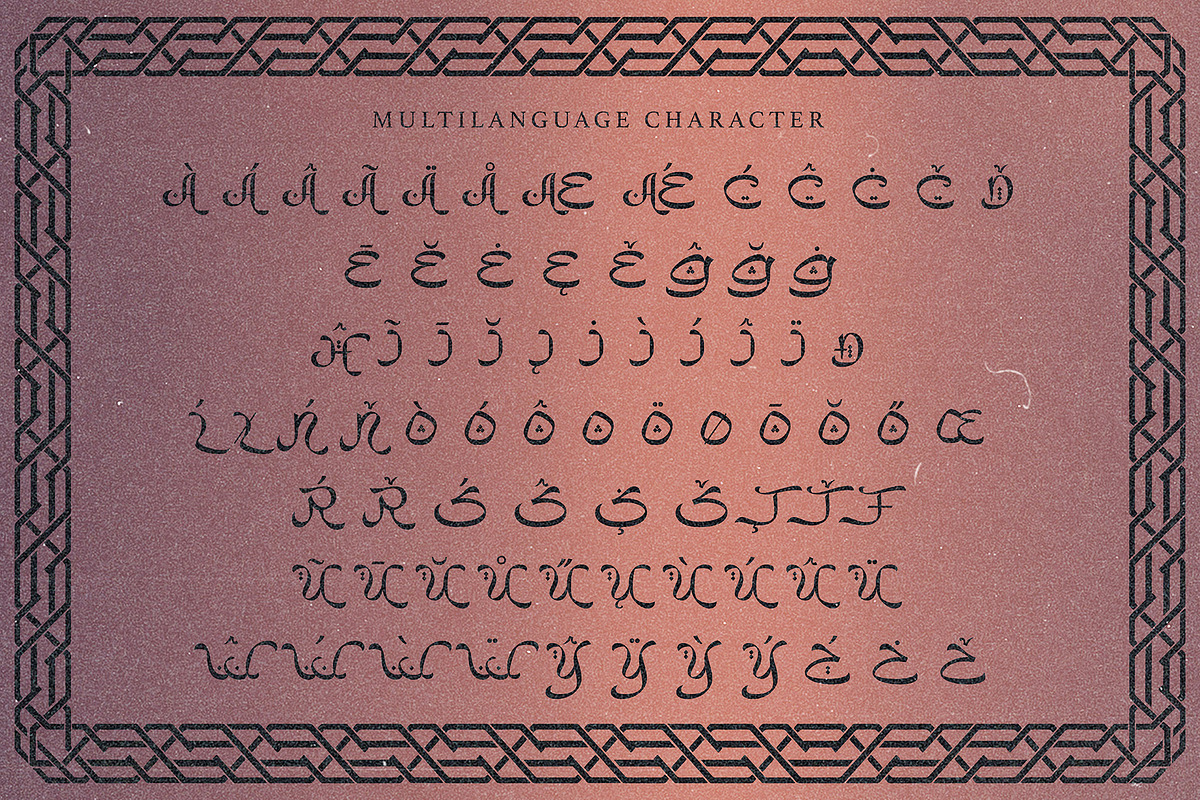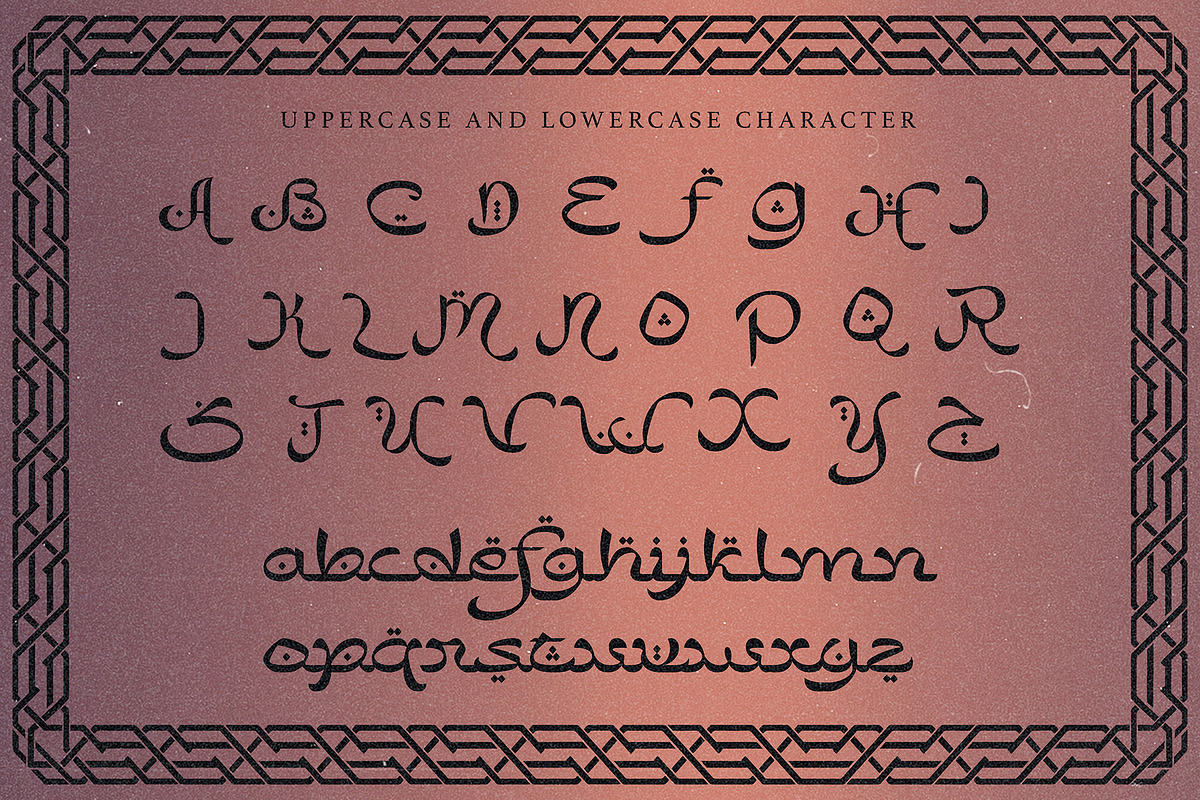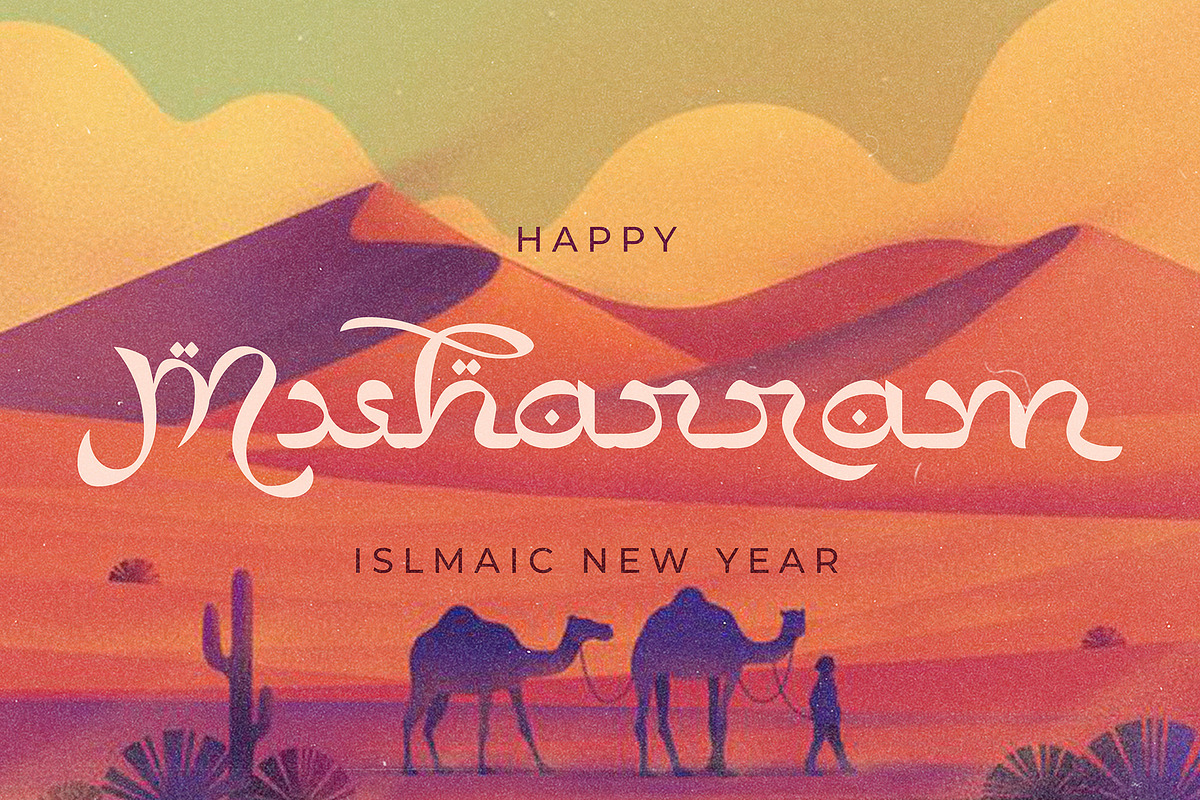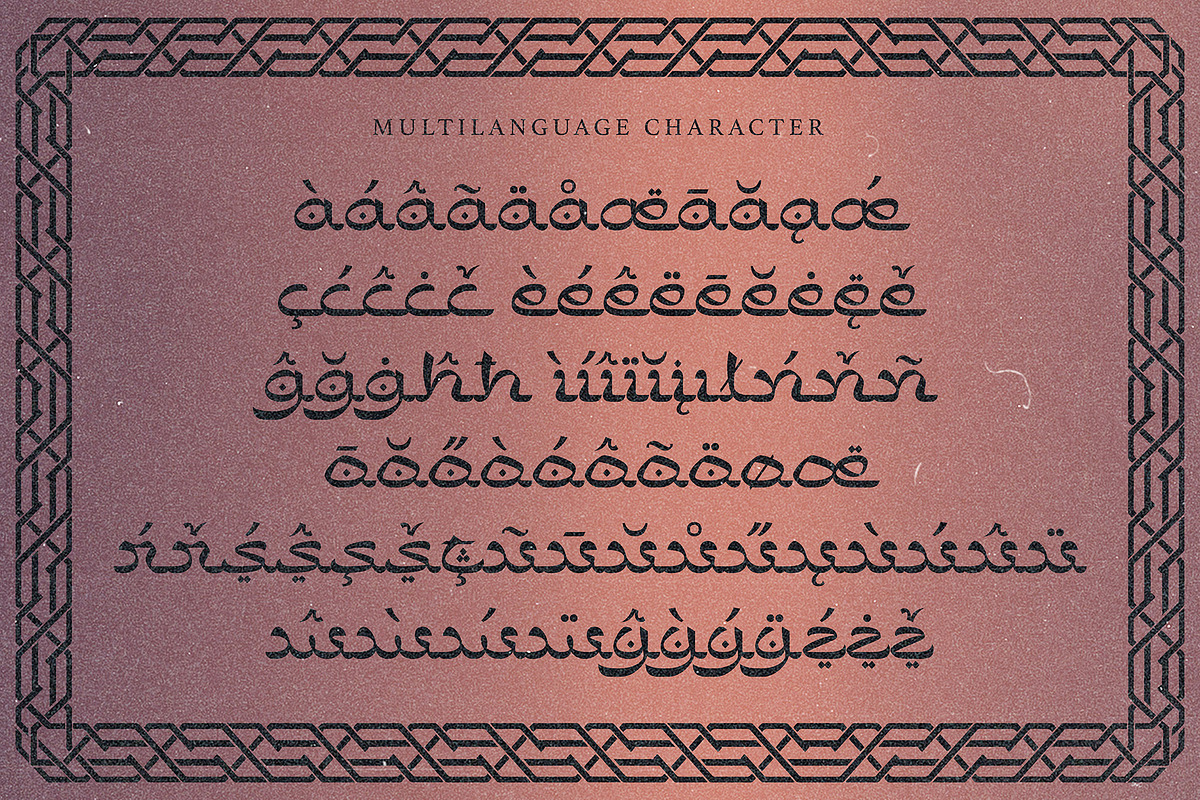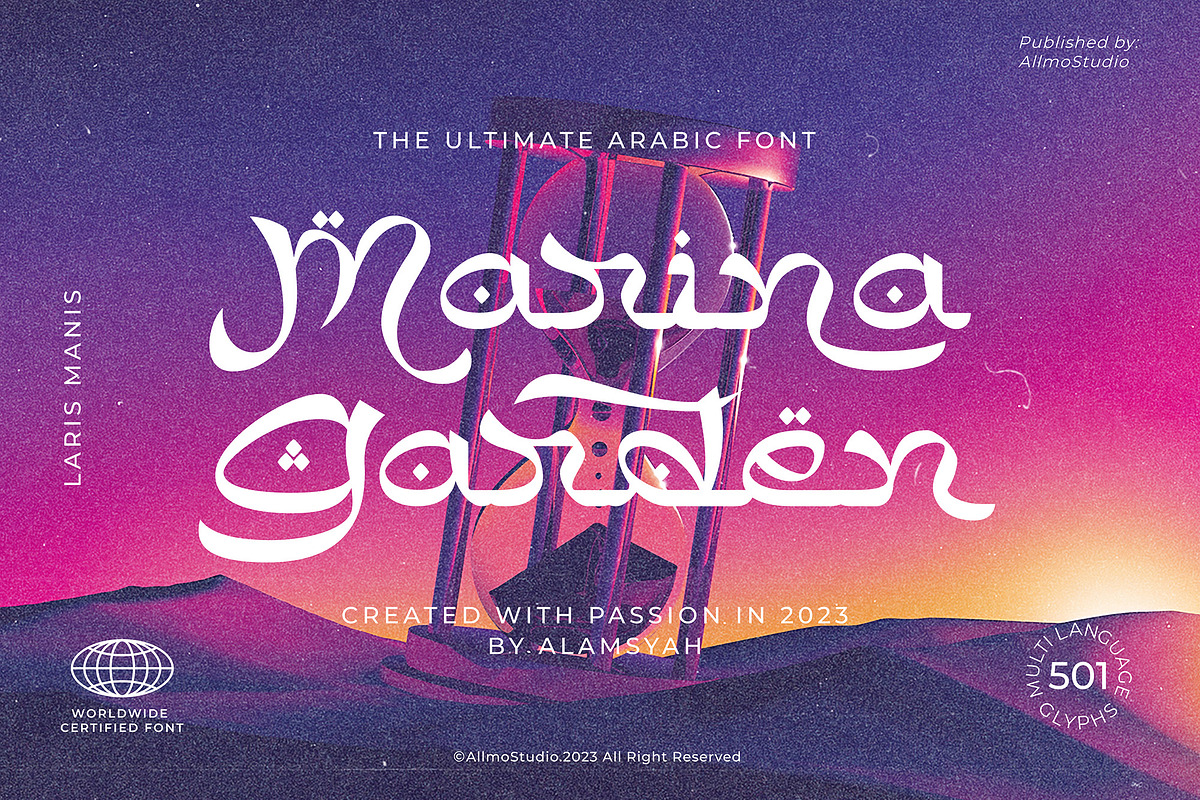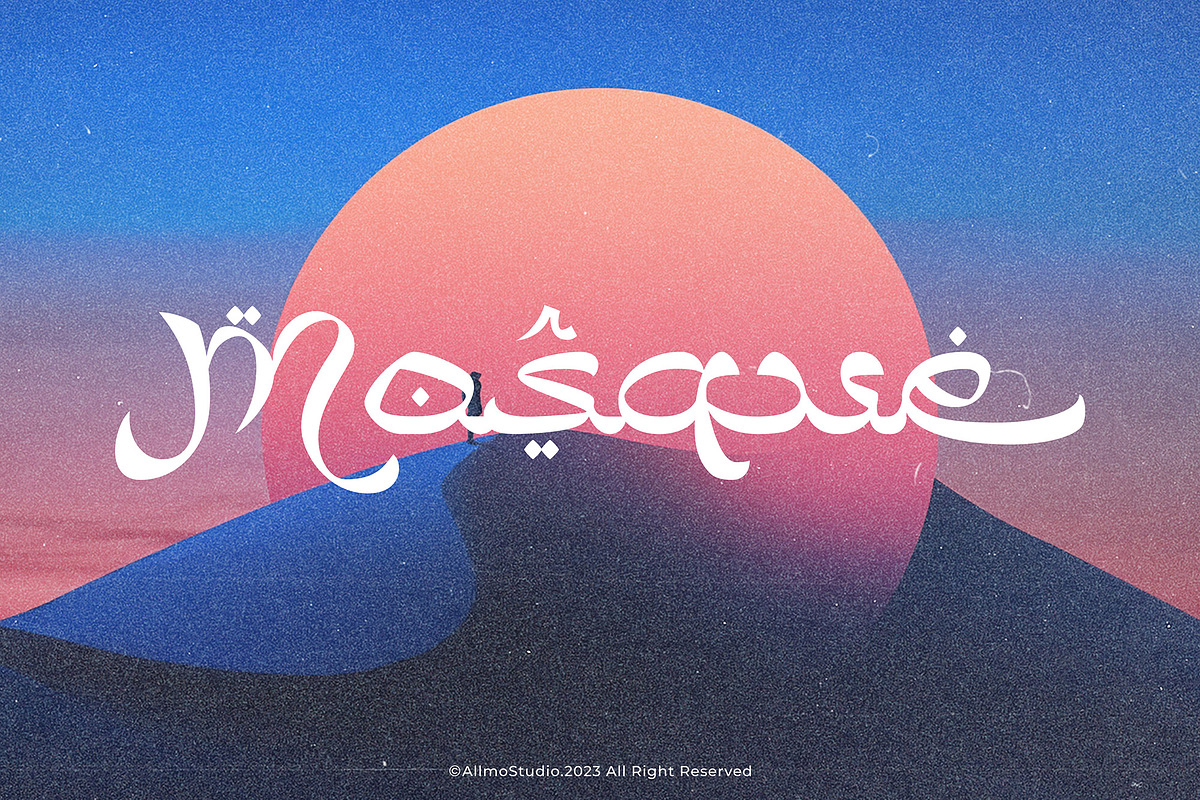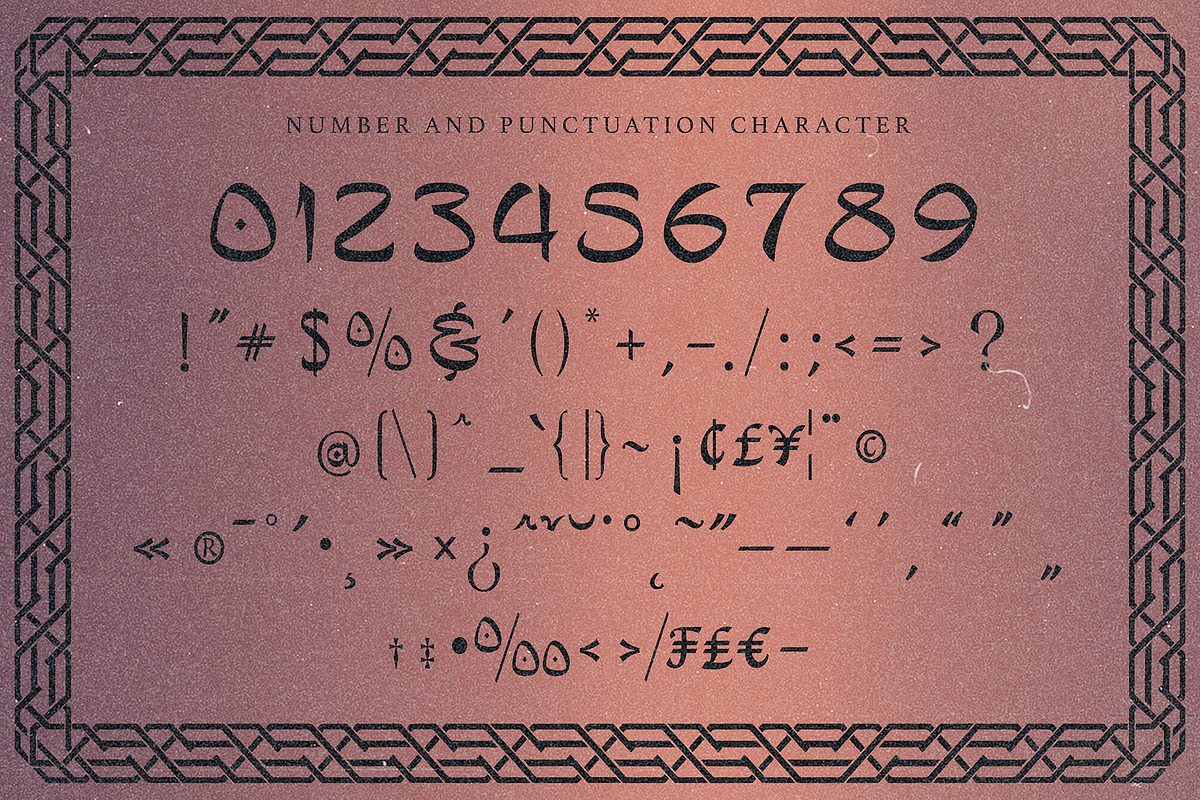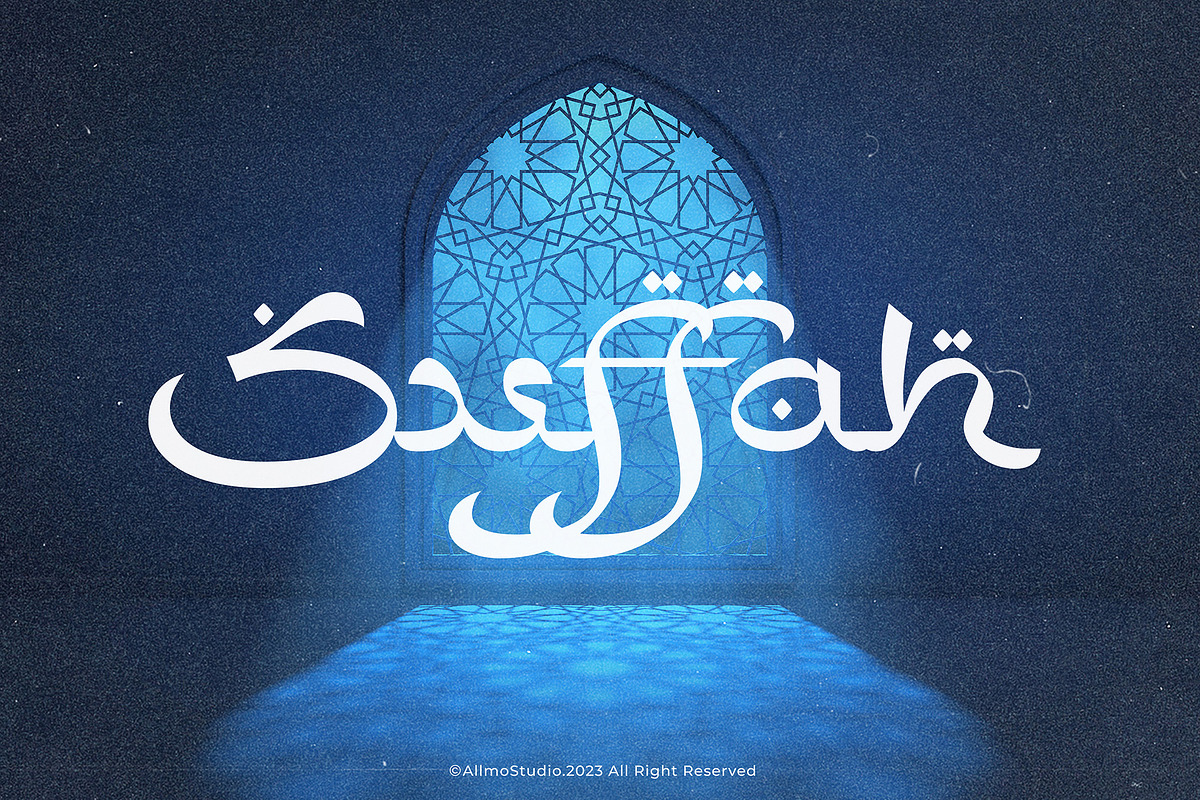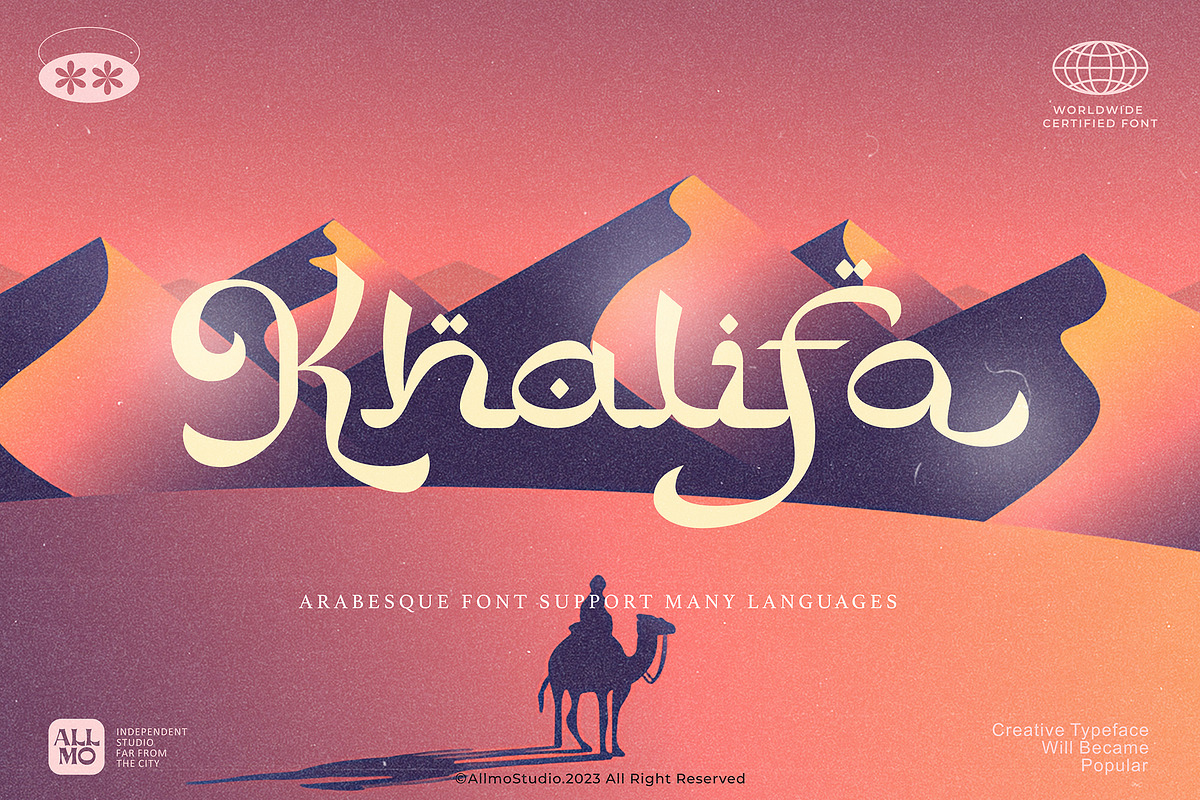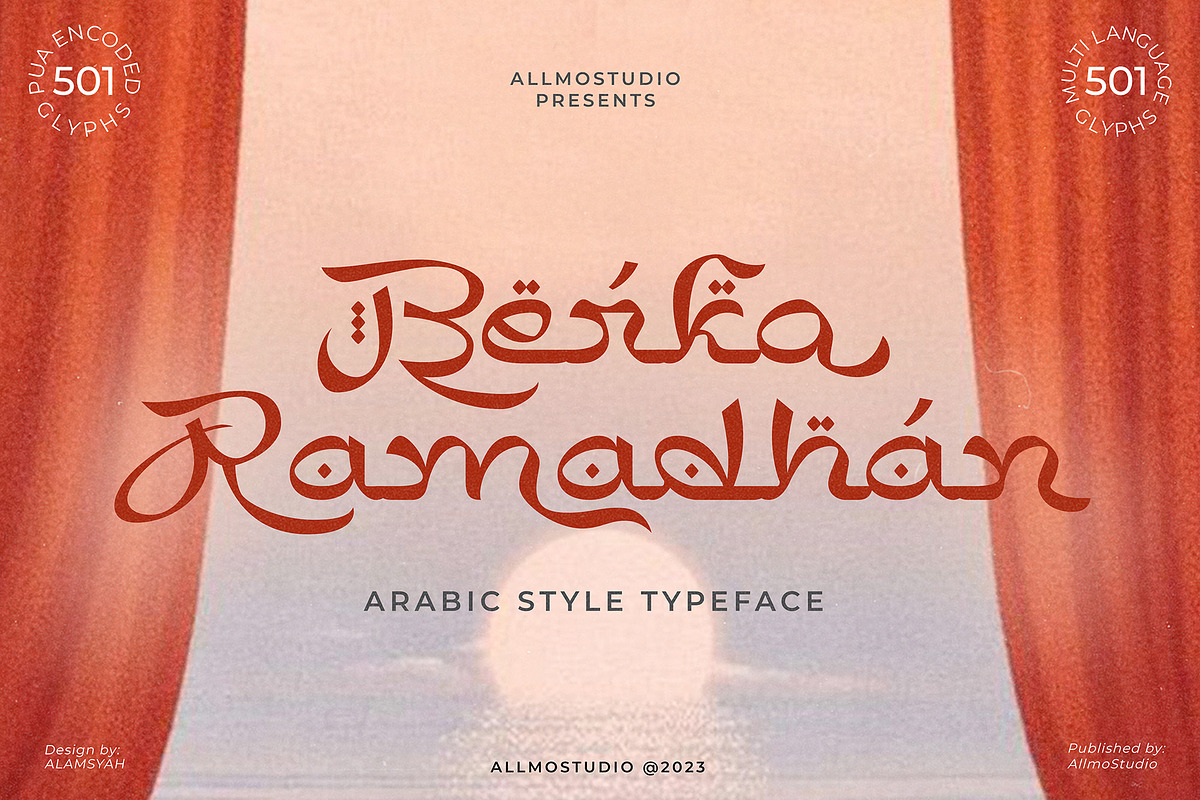
Berka Ramadhan
Berka is a beautiful display font with an Arabic style typeface that gives an authentic Middle Eastern touch to any text and looks more unique cultural aesthetic. and has an attractiveness when you see it. Each letter shape has been designed to have a character that is easily recorded in the mind.
Berka means increasing or developing something, the name Berka has the hope that this font will always develop and increase in users.
This font is Inspired by Arabic-shaped characters, clean lines, and smooth curves giving any project an extra touch of class.
This typeface is perfect for a large point size, for example in magazine layouts, packaging, book, title design, fashion brand, clothes, lettering, quotes design, and many other ways to your work.
We make all the characters PUA encoded and multilingual.